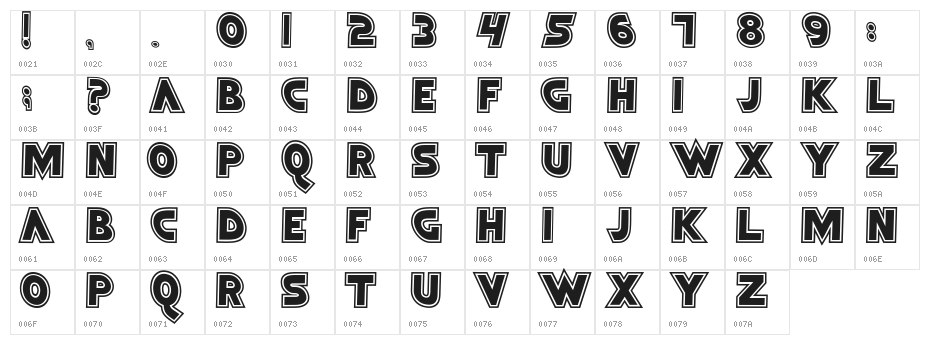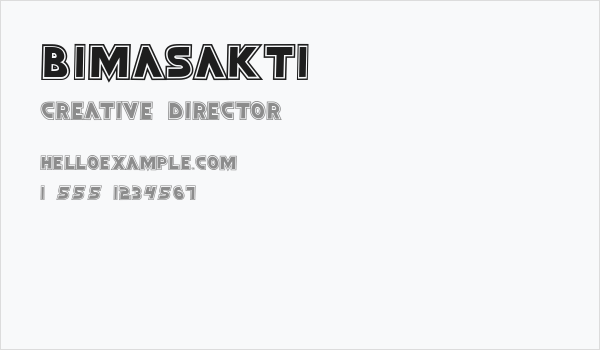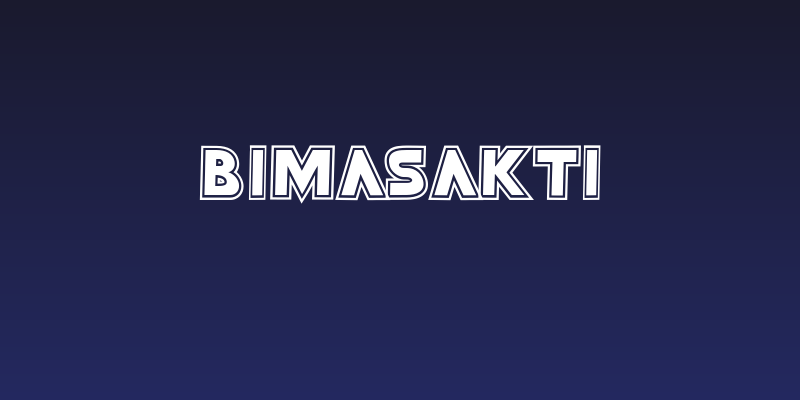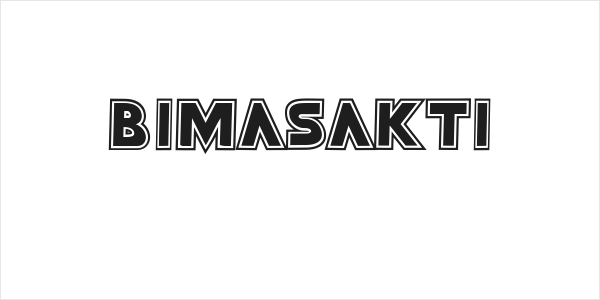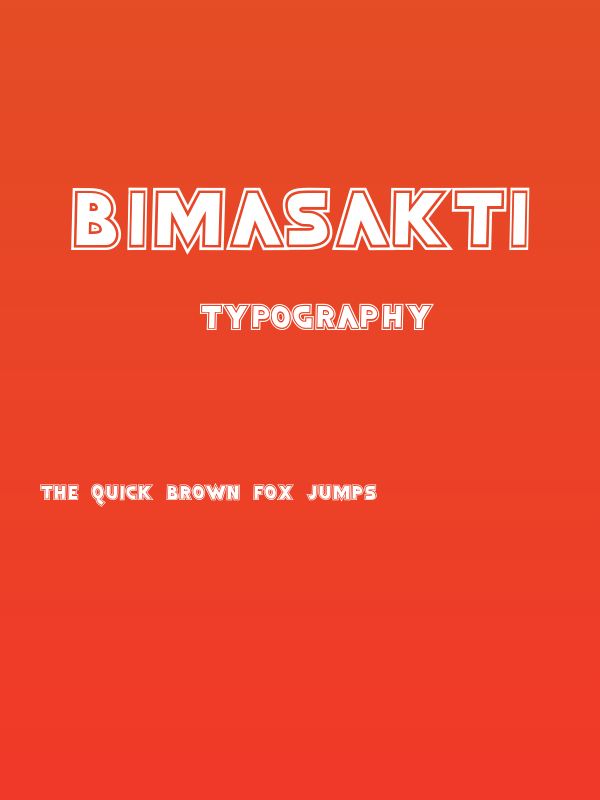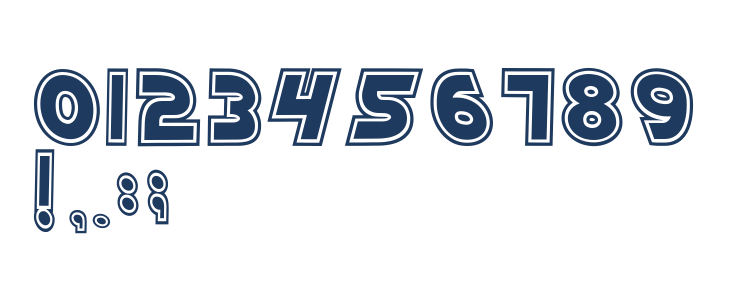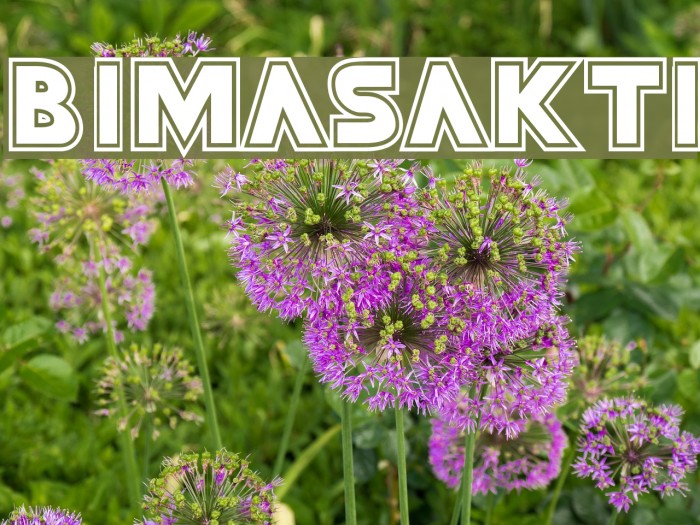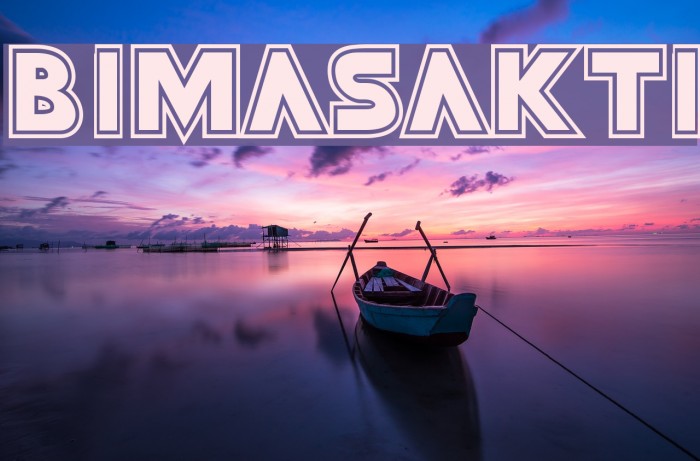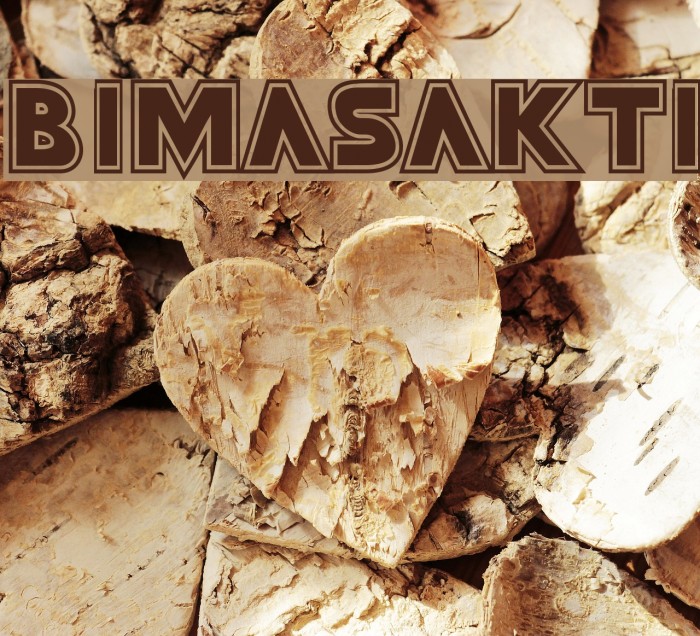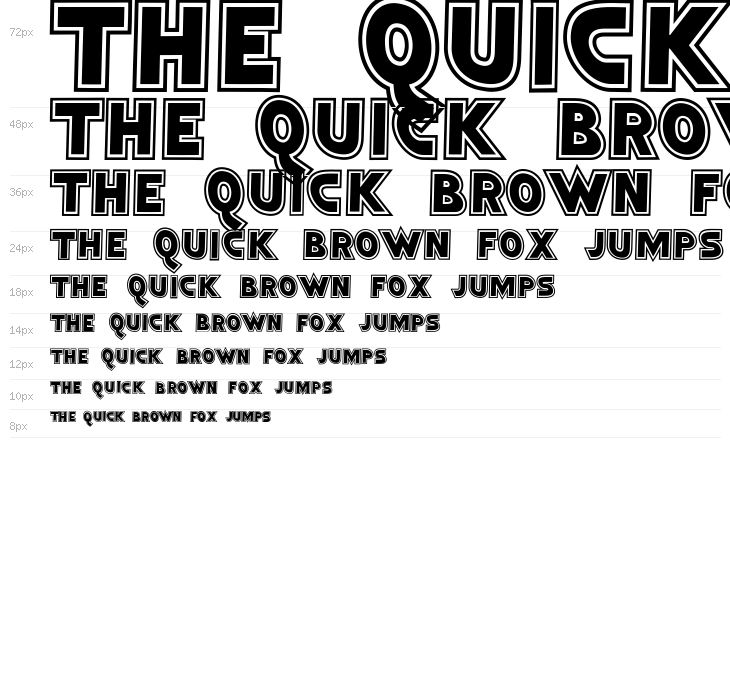
Bimasakti Font
Bimasakti Description
This font features a bold, geometric style with a strong presence. Each character is outlined, creating a striking contrast between the solid interior and the defined edges. The uppercase letters are particularly prominent, with angular lines and sharp corners that give a modern, dynamic feel. The numbers and special characters maintain this bold aesthetic, ensuring consistency across all elements. The font's design is both eye-catching and versatile, making it suitable for a variety of creative applications.
| Proposed Projects | Ideal for posters, logos, headlines, and branding materials that require a strong visual impact. |